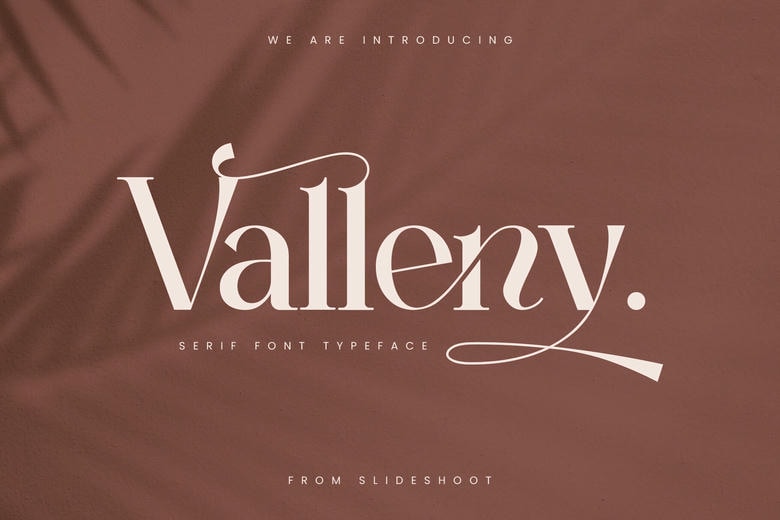
Valleny Font
Valleny Serif is a standard, harmonized, glamorous and aesthetic font designed in the serif font family. He has a beautiful character. Thus, it coordinating well with the invitation card, lettering for invitation cards, company logo, Movie Title, Movie Name, Business Card Title, Book Title, Brand Name and shapes and other shapes.
Valleny Serif is a smooth serif typeface with professional and dignified feeling of harmony. With such changes as fashionable alternations and ligatures, this font is complemented by another perfect partner for a project.
Valleny Serif Font